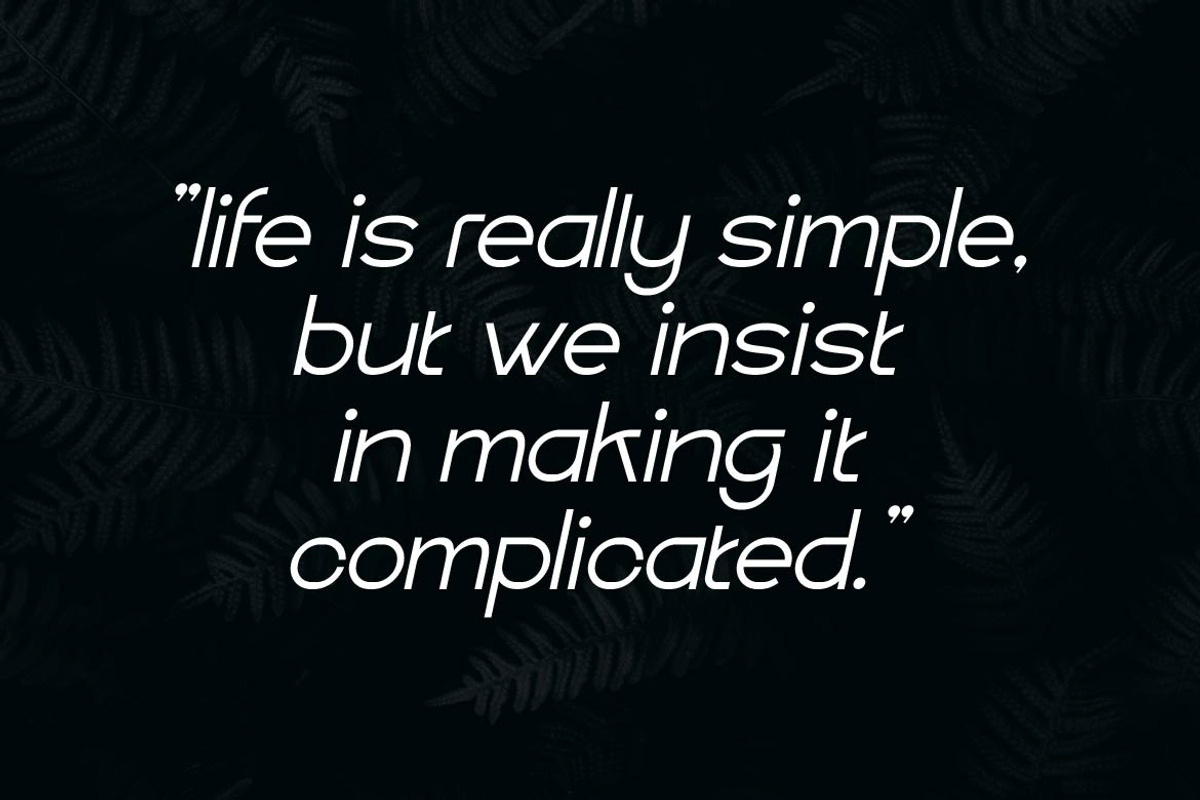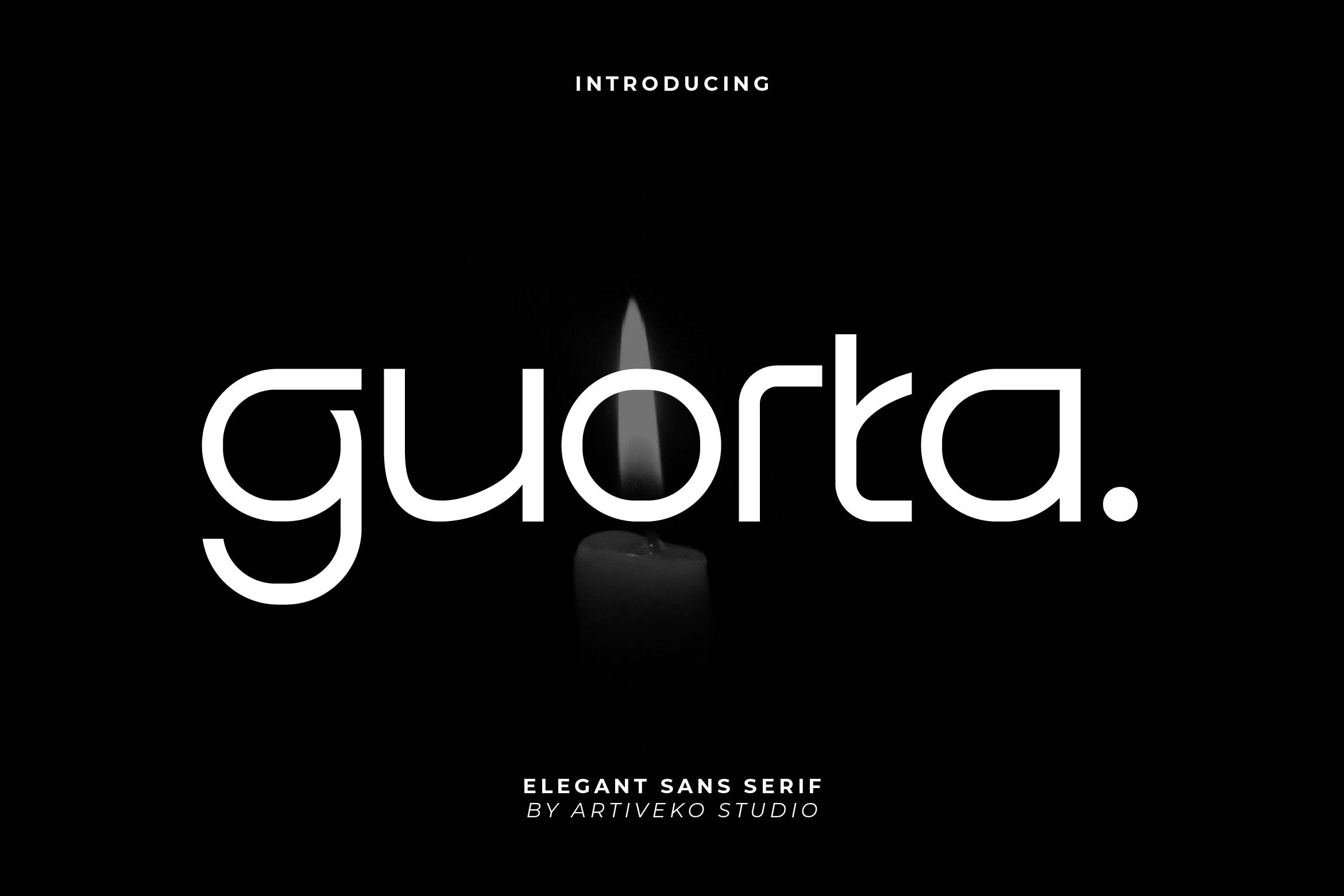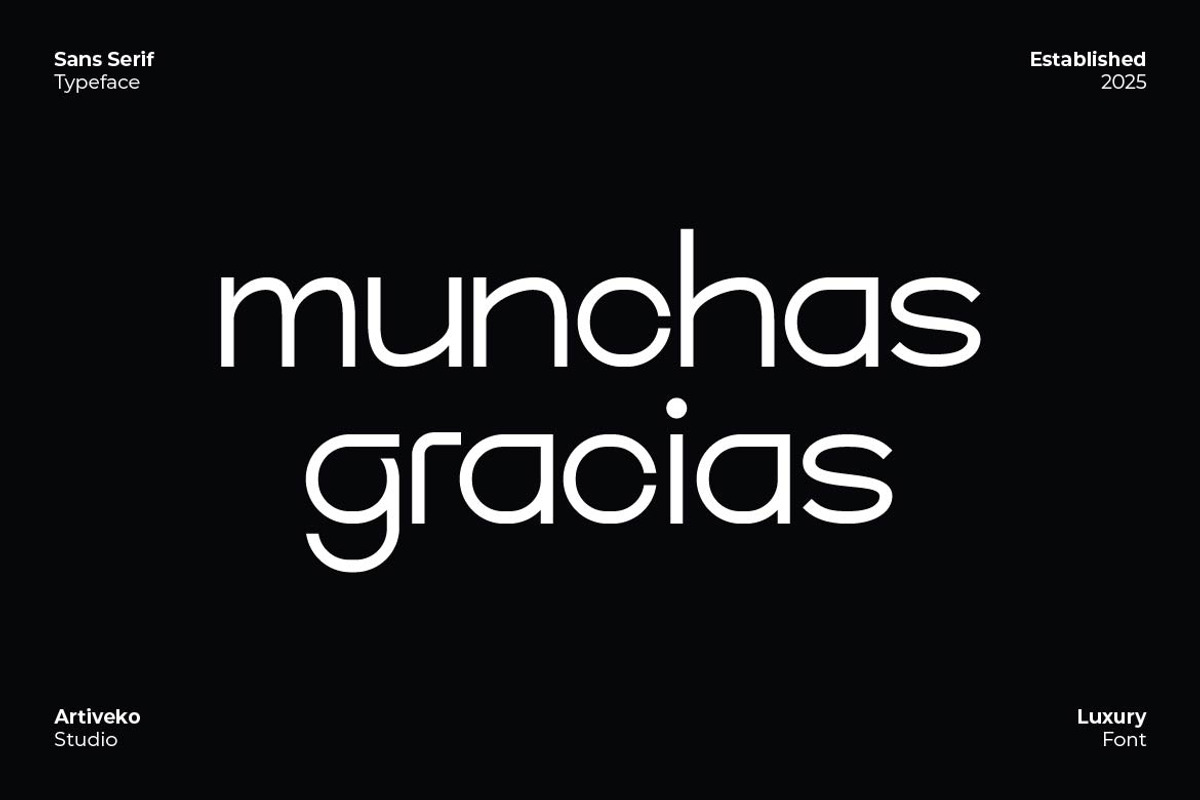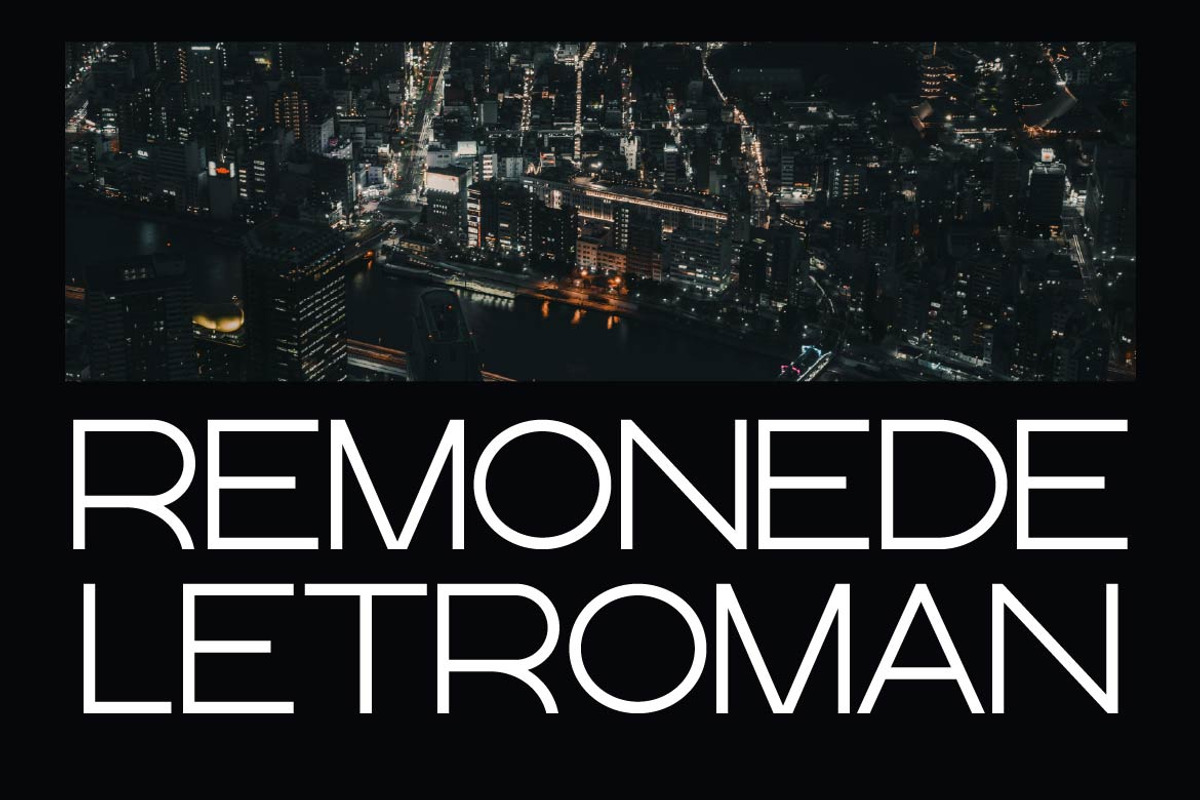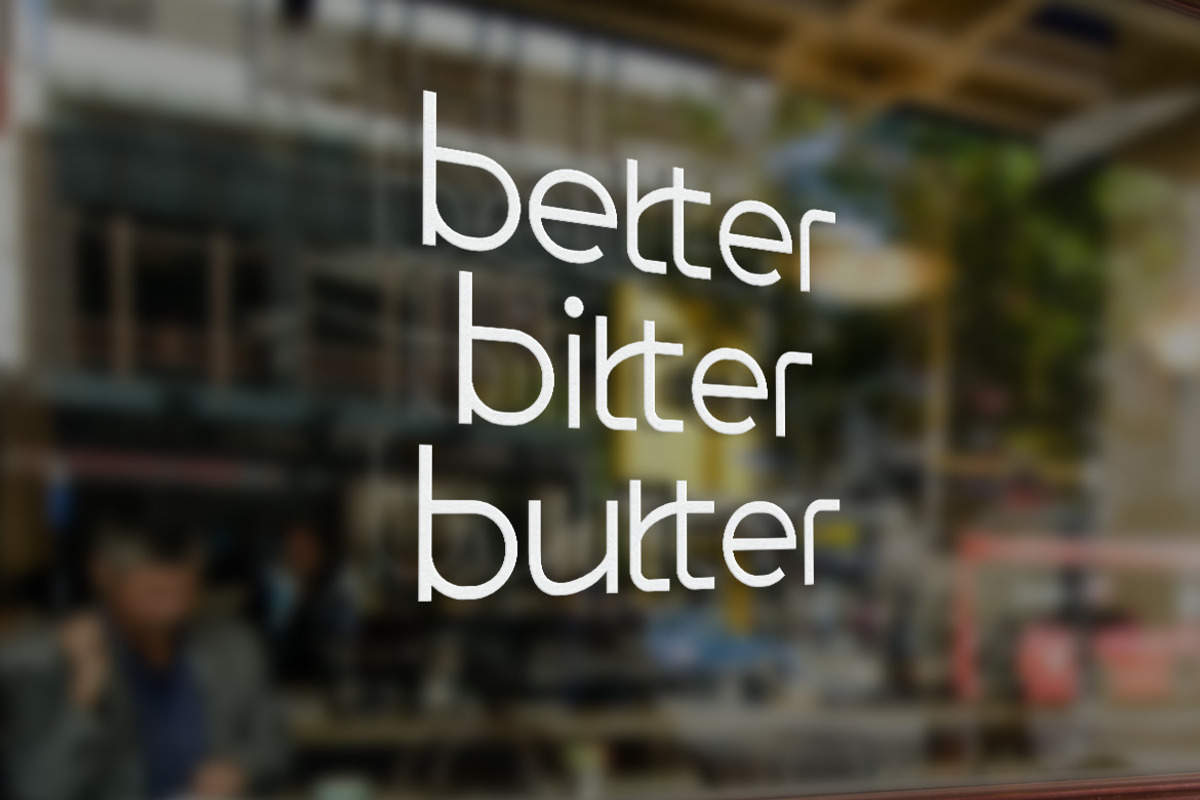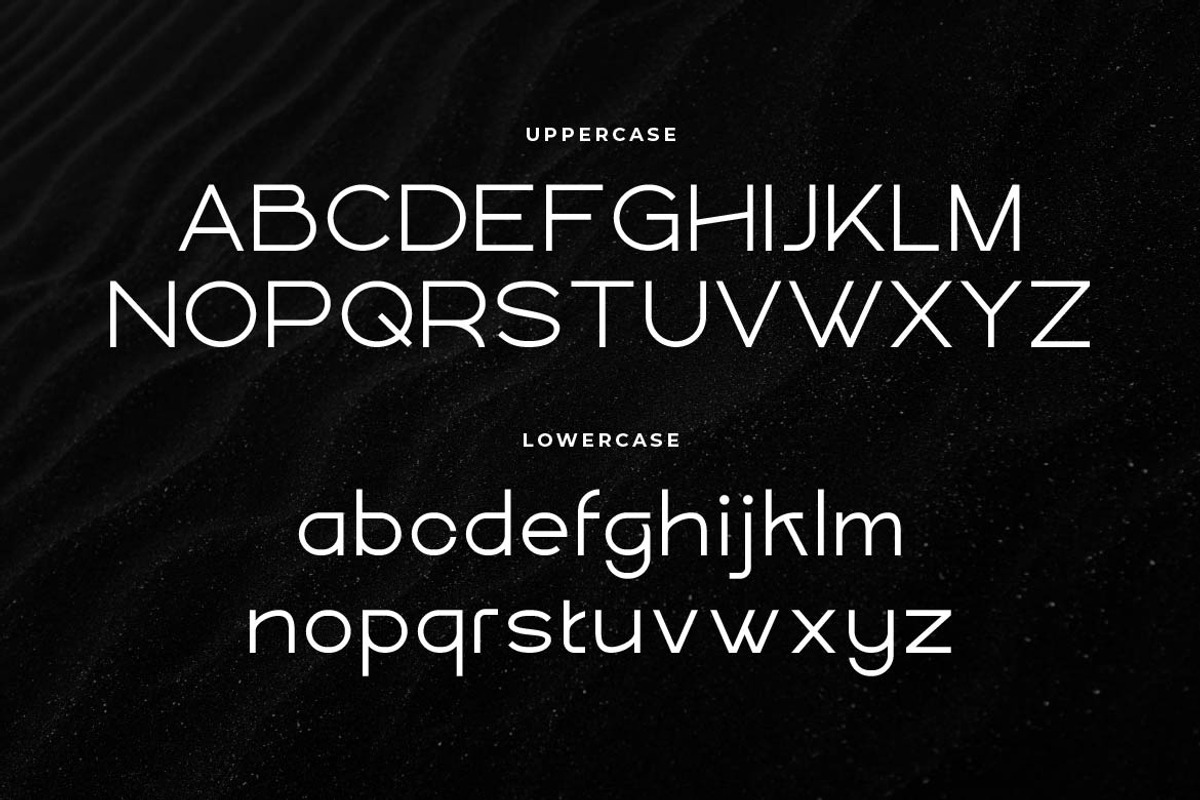
Guorta Minimalist Sans Serif Font
Guorta is a clean and refined sans serif font that embodies simplicity, balance, and contemporary elegance. With its smooth curves, precise geometry, and minimalist letterforms, Guorta is perfect for branding, editorial layouts, website headers, product packaging, and social media graphics that require a modern and timeless aesthetic.